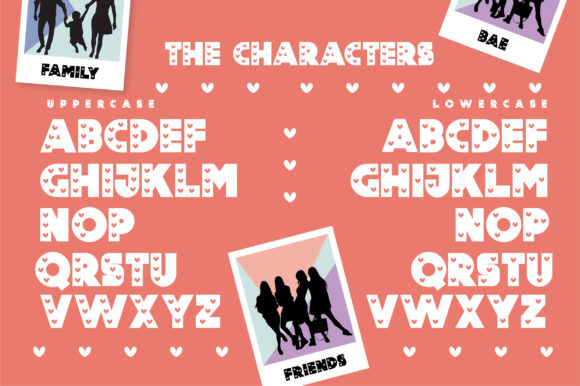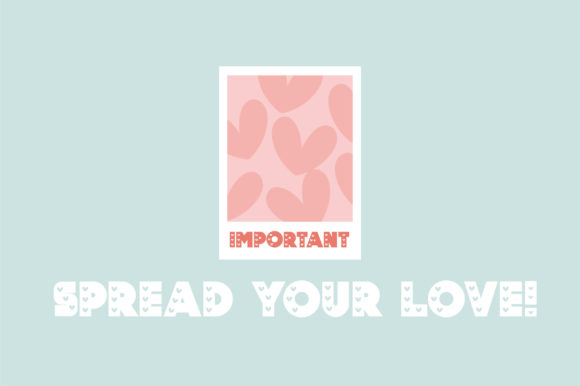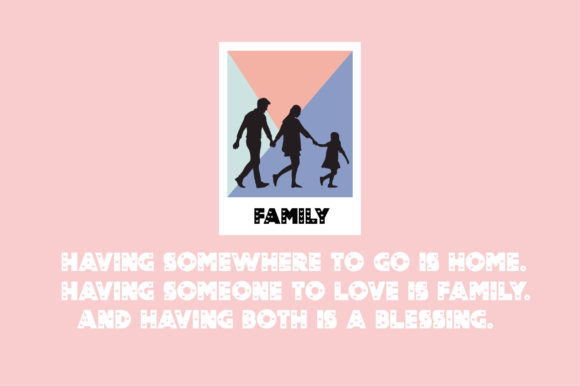
Introducing Dear Love Font: The Perfect Addition to Your Design Collection
Are you a designer or crafter looking for a font that can add a touch of joy and whimsy to your creative projects? Look no further than Dear Love Font, a cute display font with a lovely theme that’s sure to make your designs stand out.
What is Dear Love Font?
Dear Love Font is a beautiful display font that’s perfect for adding a personal touch to your designs. With its playful and charming theme, this font is ideal for use in a variety of creative projects, from handmade crafts to digital designs. Whether you’re creating invitations, greeting cards, or social media graphics, Dear Love Font is sure to add a touch of warmth and personality to your work.
Key Features of Dear Love Font
- Cute and Playful Theme: Dear Love Font has a lovely theme that’s perfect for adding a touch of joy and whimsy to your designs.
- Display Font: This font is designed to make a statement, with bold and eye-catching letters that are sure to grab attention.
- Versatile: This font can be used in a variety of creative projects, from digital designs to handmade crafts.
Ideas for Using Dear Love Font
Here are a few ideas for using Dear Love Font in your creative projects:
- Create a Handmade Card: Use Dear Love Font to add a personal touch to your handmade cards and invitations.
- Design a Social Media Graphic: Use the font to create eye-catching social media graphics that are sure to grab attention.
- Make a Journal Page: Use Dear Love Font to add a touch of whimsy to your journal pages.
- Design a Party Invitation: Use the font to create a fun and playful party invitation that’s sure to get your guests excited.
Why Choose Dear Love Font?
There are many reasons why you should choose Dear Love Font for your creative projects. Here are a few:
- Unique and Playful: Dear Love Font has a unique and playful theme that’s sure to make your designs stand out.
- Versatile: Dear Love Font can be used in a variety of creative projects, from digital designs to handmade crafts.
| Author | Caoca Studio |
In conclusion, Dear Love Font is a beautiful display font that’s perfect for adding a touch of joy and whimsy to your creative projects. With its playful and charming theme, this font is ideal for use in a variety of creative projects, from handmade crafts to digital designs. Whether you’re a designer or crafter, Dear Love Font is sure to become a favorite in your collection.